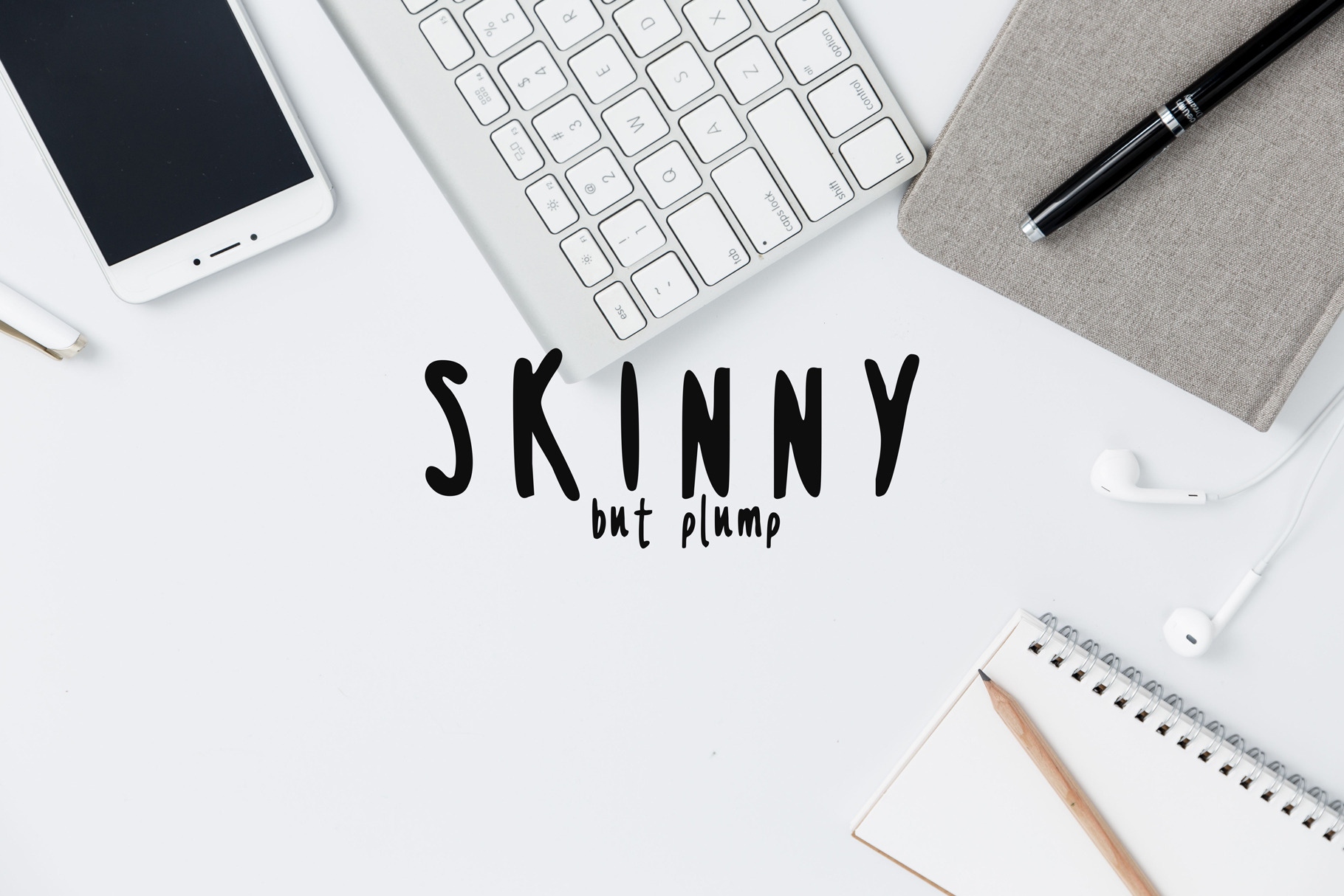
Handwritten Skinny Plump Font
A handwritten font that skinny but a little plump. This playful font would look great in your print, mug or invitation designs.